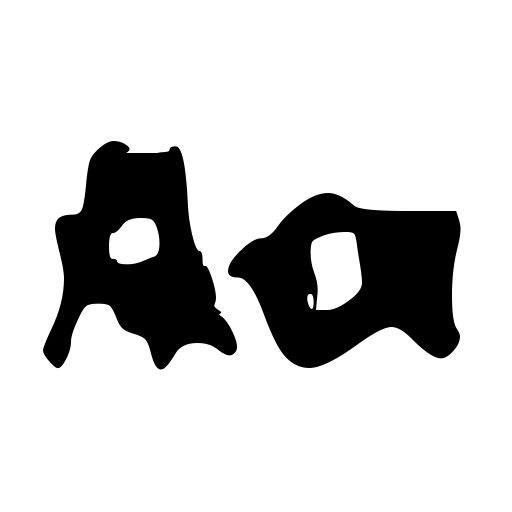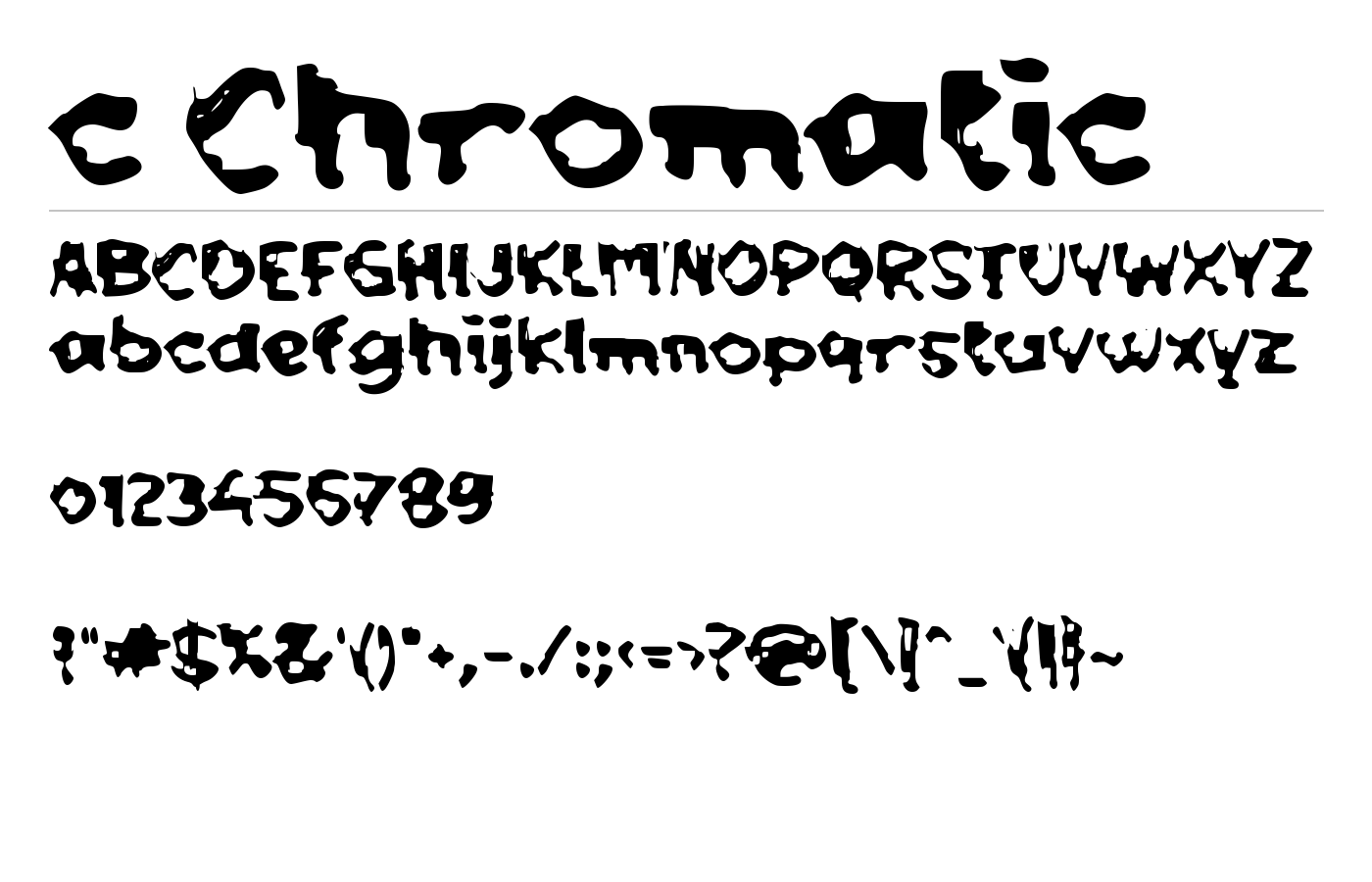
c Chromatic is an expressive, bold display font with irregular, organic shapes that give it a playful and edgy personality. Its uneven strokes and quirky letterforms create a hand-drawn, almost distorted look, making it ideal for attention-grabbing headlines, creative posters, or artistic branding where a unique and unconventional style is desired. This font adds a dynamic, rebellious vibe that works well in projects seeking to stand out with a distinctive and lively character.
c Chromatic Font